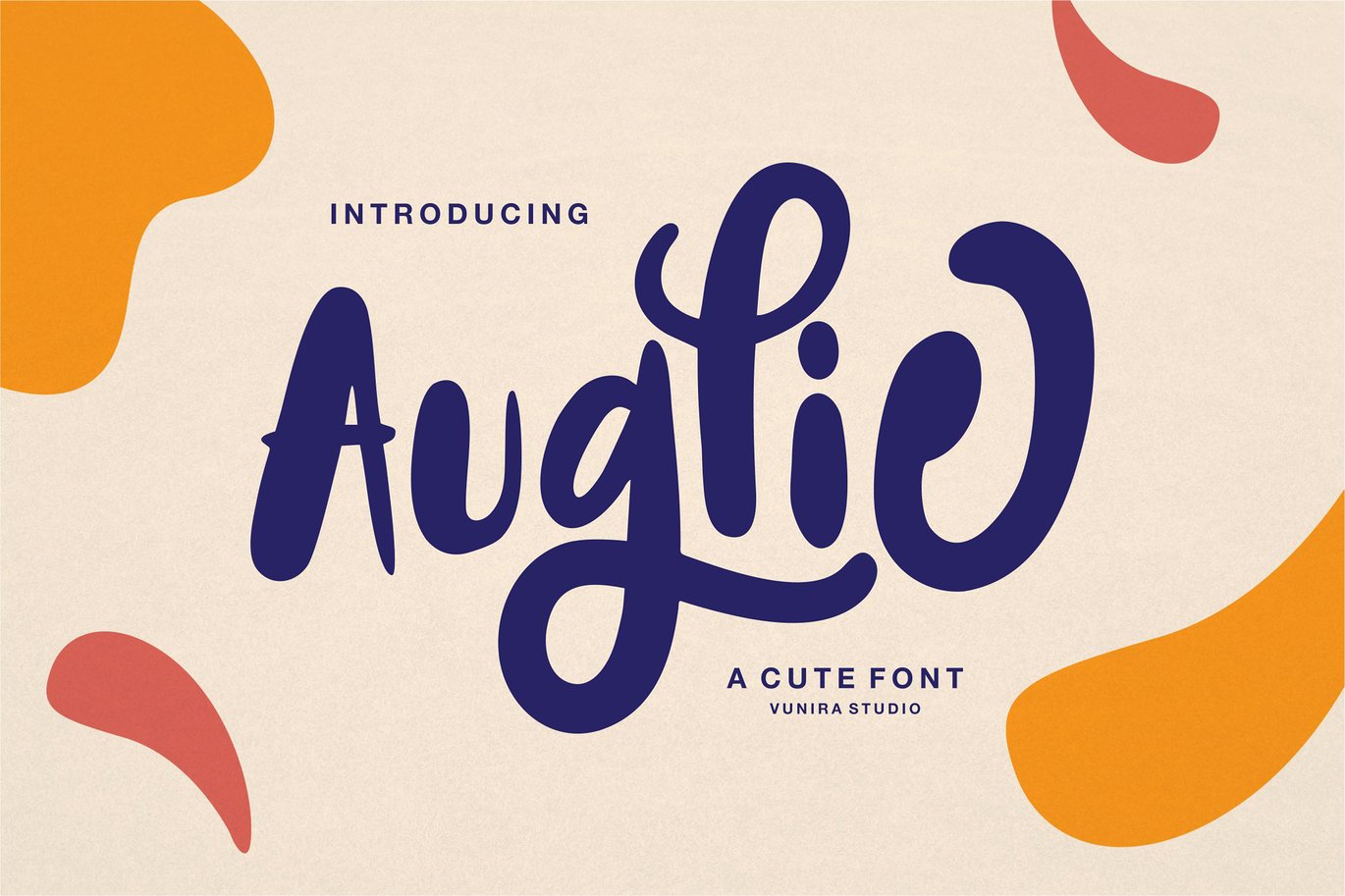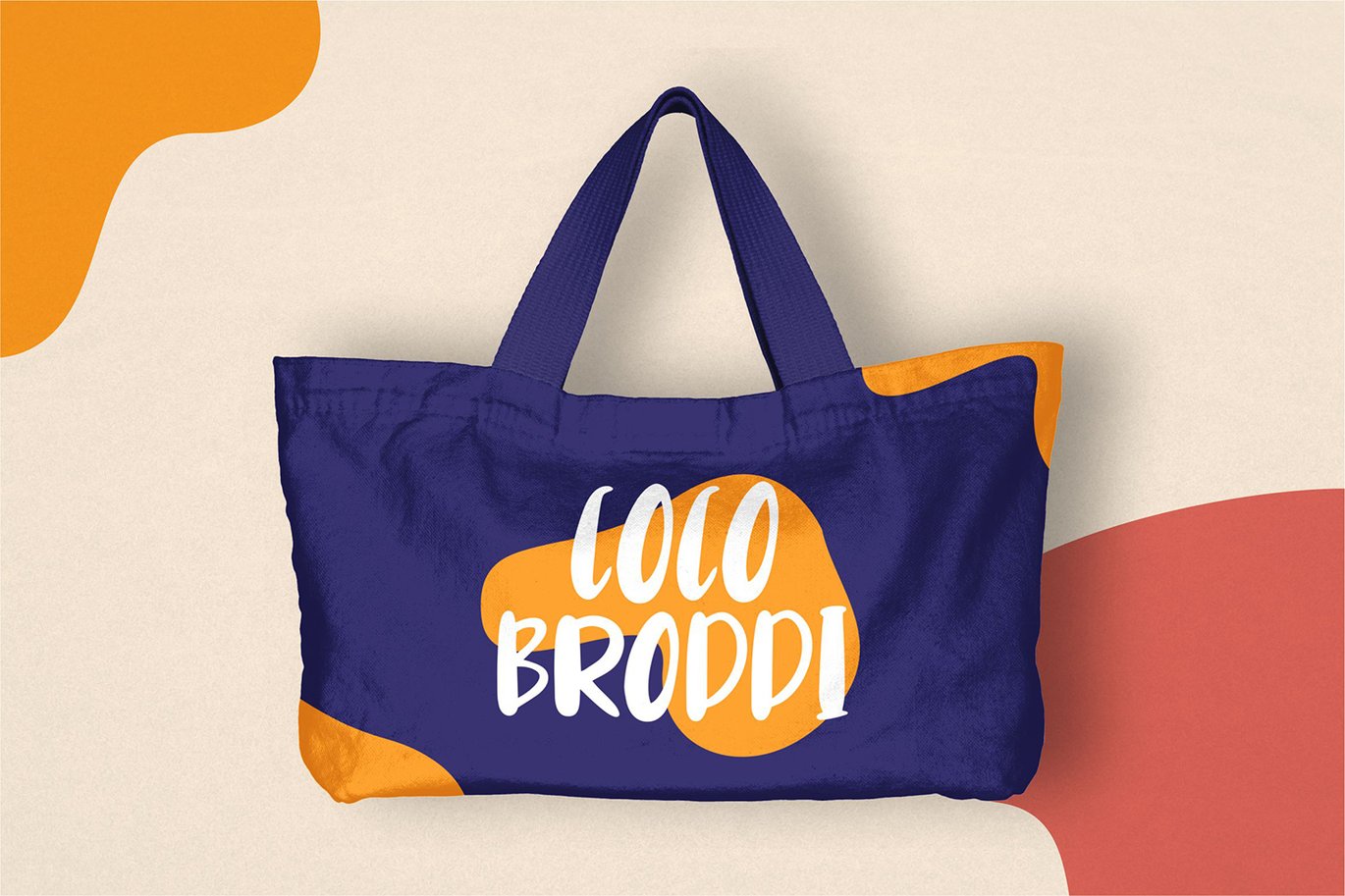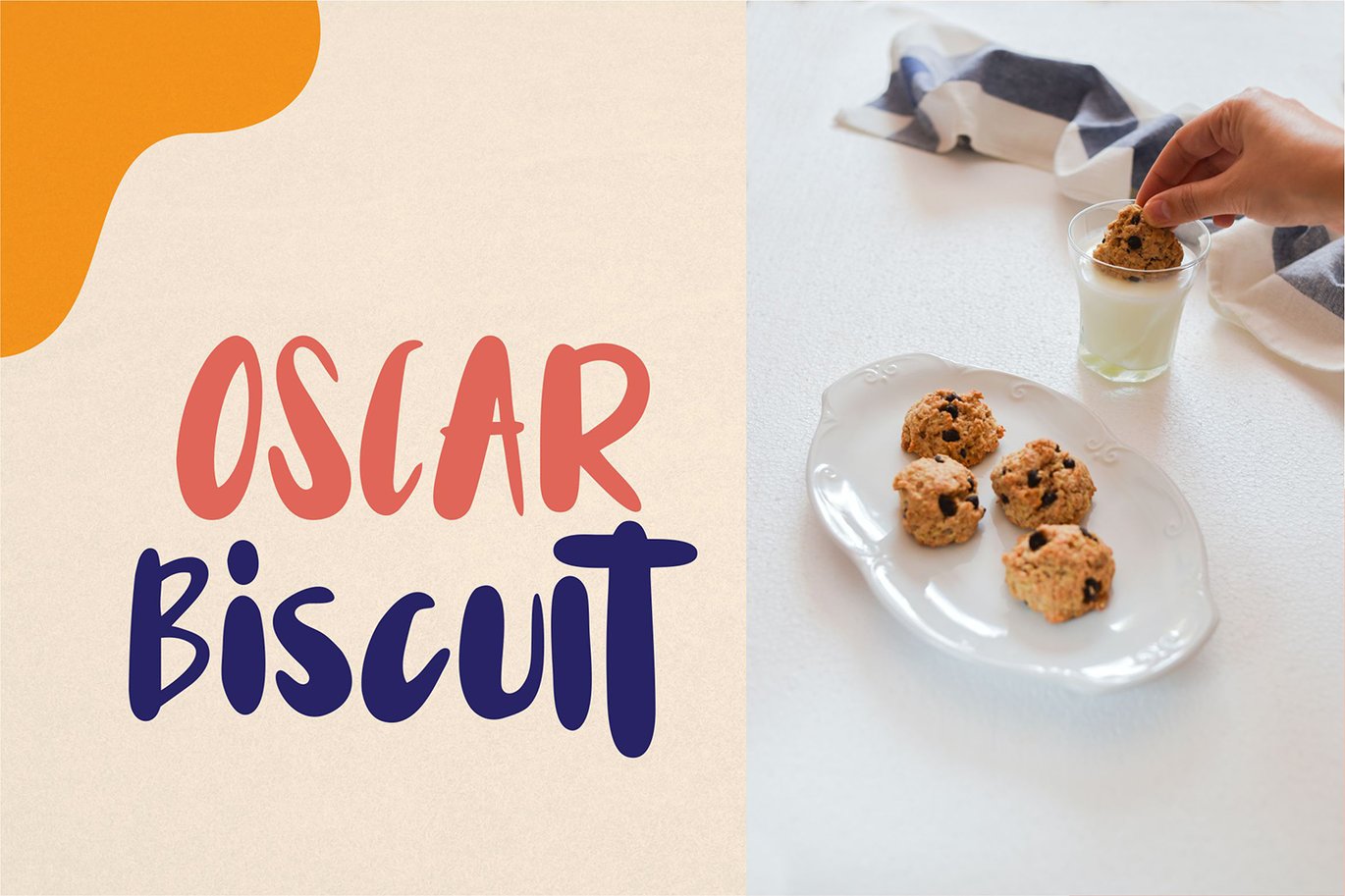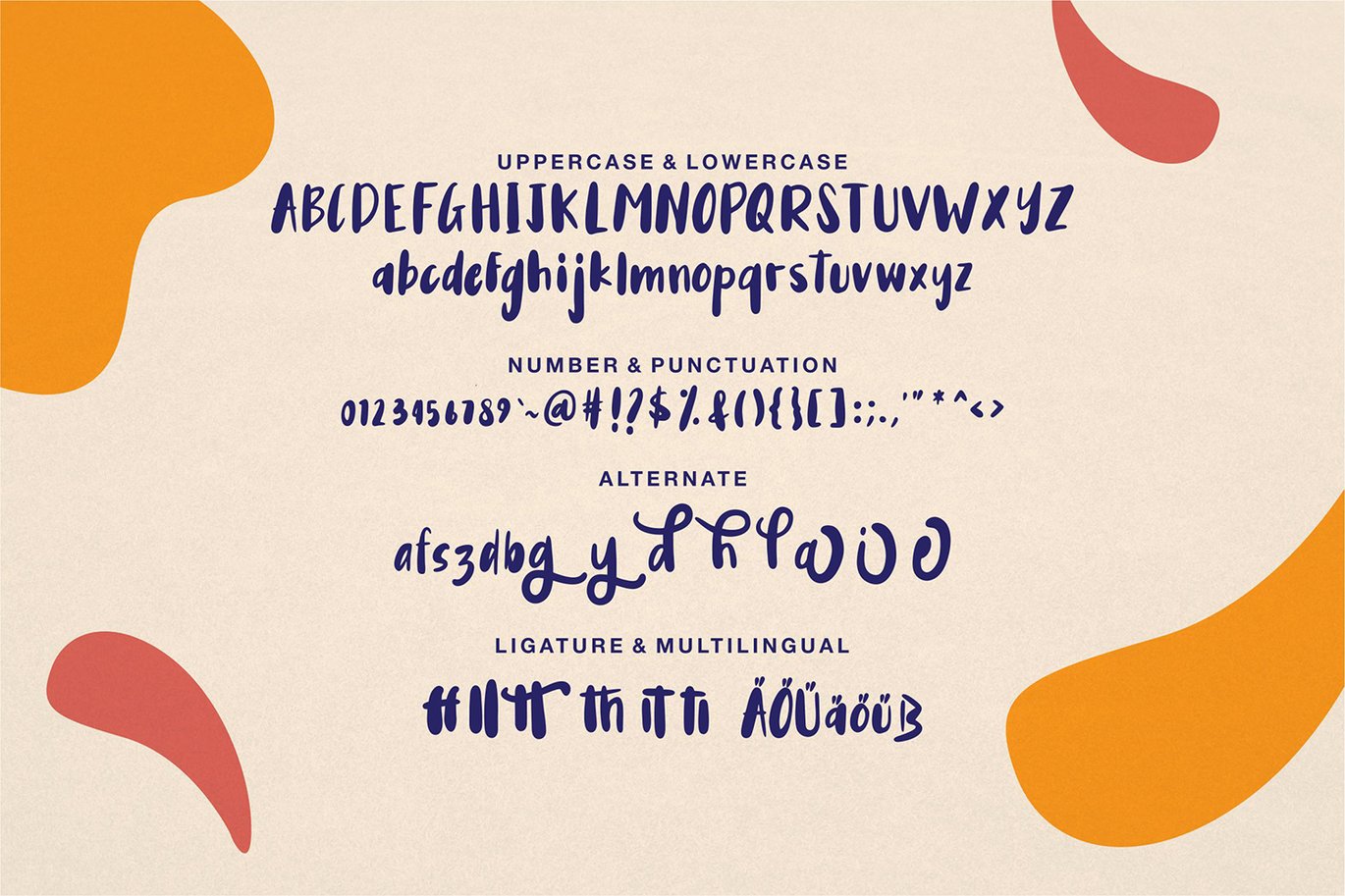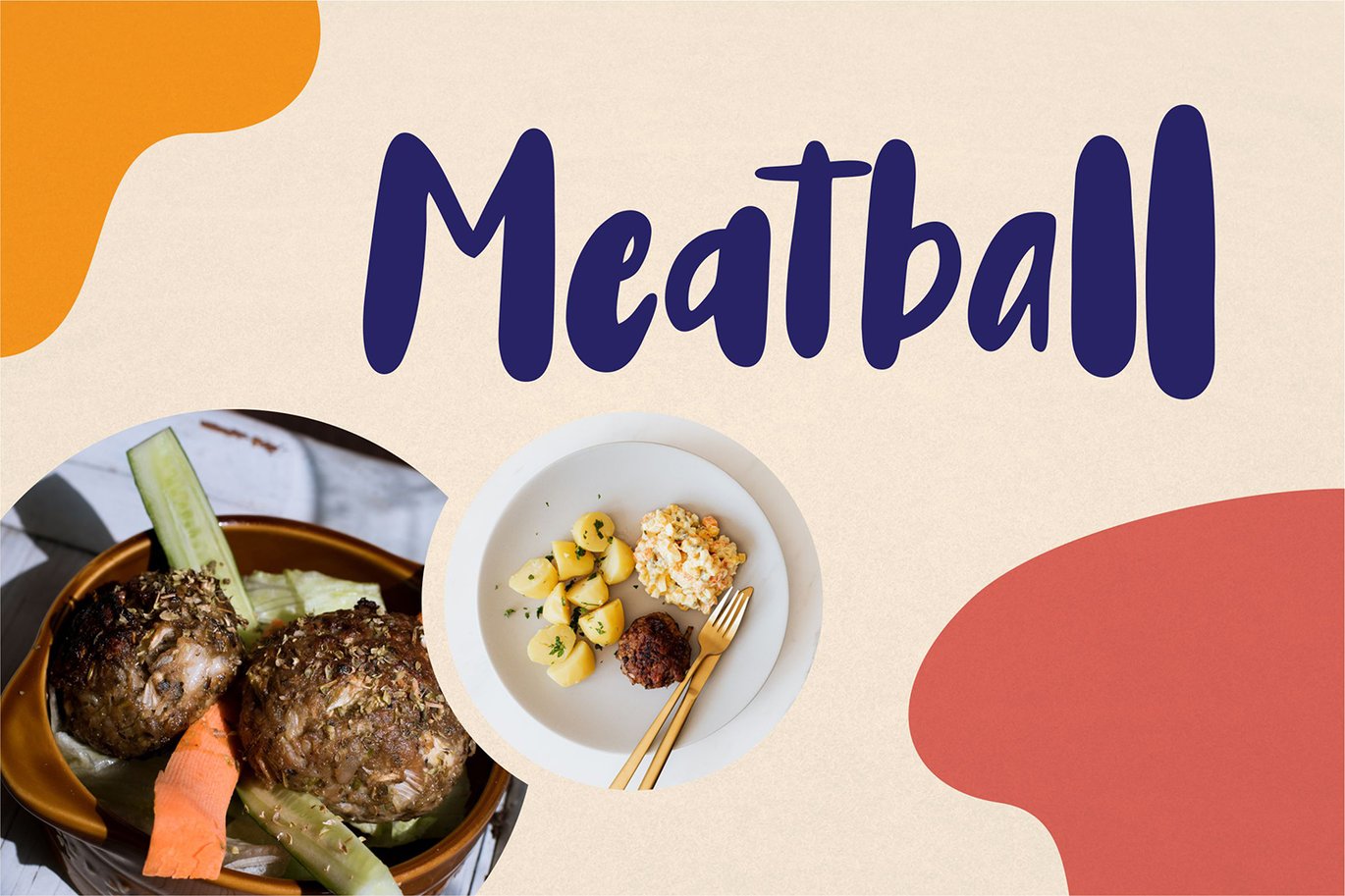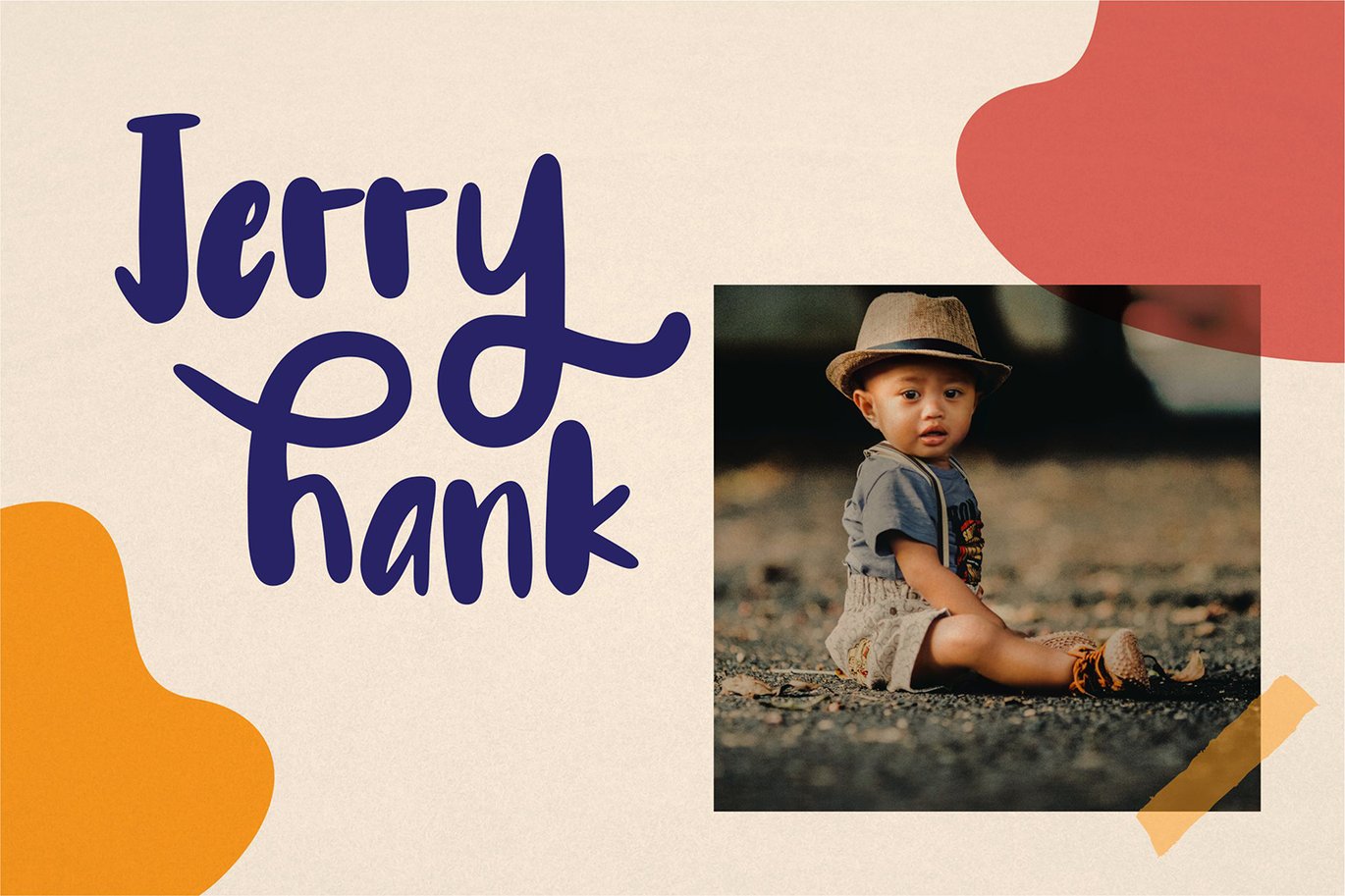
Auglie | A Cute Font
Auglie | A Cute Font with a calligraphy style, So beautiful on invitation like greeting cards, branding materials, business cards, quotes, posters, and more!